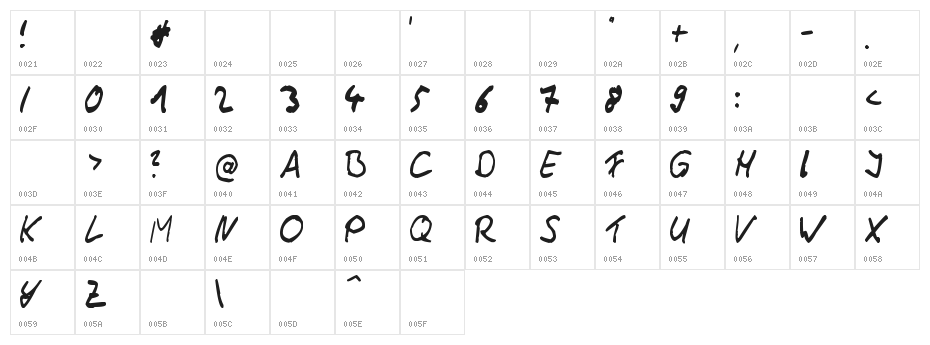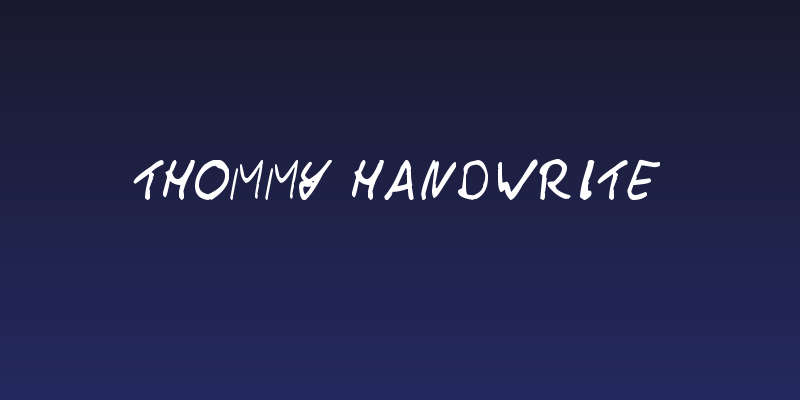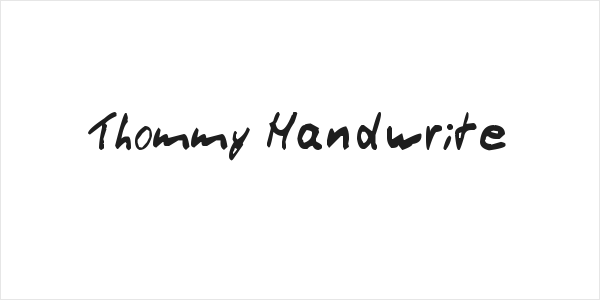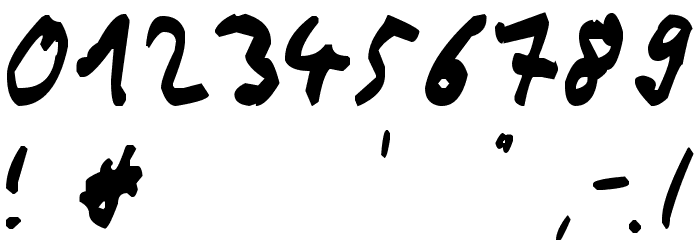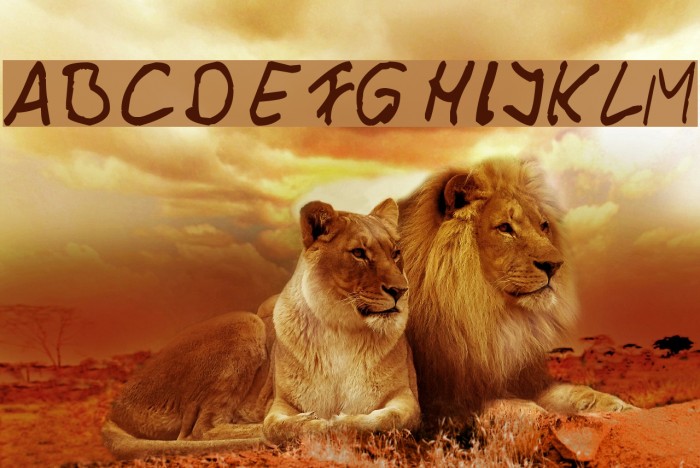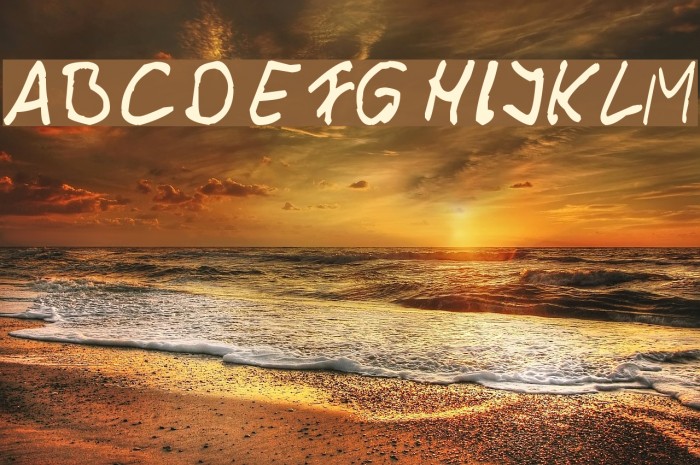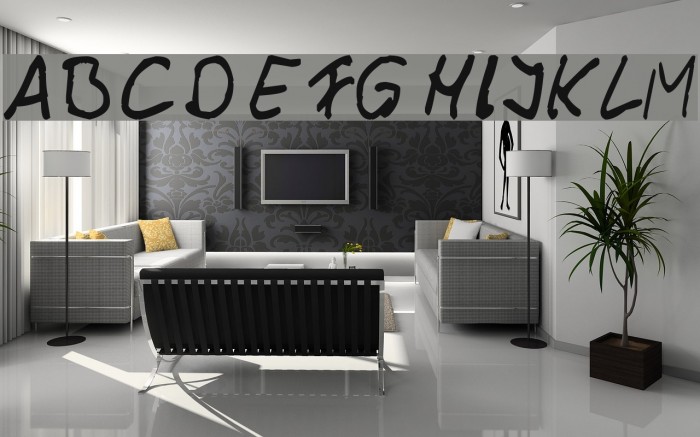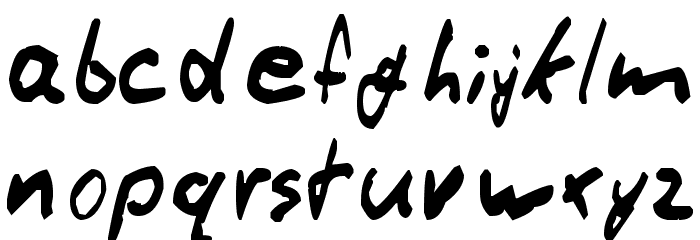
Thommy Handwrite Font
Thommy Handwrite Description
This font exudes a casual and personal touch, reminiscent of authentic handwriting. Each character is crafted with a natural flow, featuring slight variations in stroke width that add to its charm. The uppercase letters maintain a consistent height, while the lowercase letters exhibit a playful and spontaneous style. Numbers and special characters are designed to match the overall handwritten aesthetic, making them blend seamlessly with the alphabet. The font's organic appearance makes it ideal for projects that require a personal or informal feel.
THOMMY-HANDWRITE UPPERCASE
THOMMY-HANDWRITE LOWERCASE
THOMMY-HANDWRITE OTHER CHARS
| Overall Style | Casual, Personal |
| Proposed Projects | Ideal for personal notes, invitations, greeting cards, and creative projects that require a handwritten feel. |